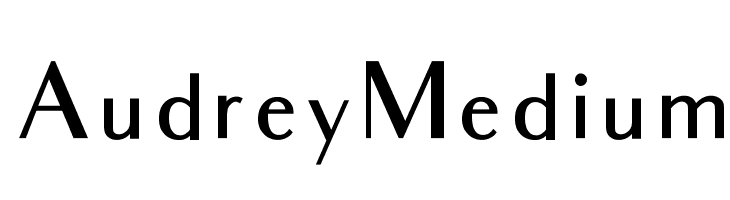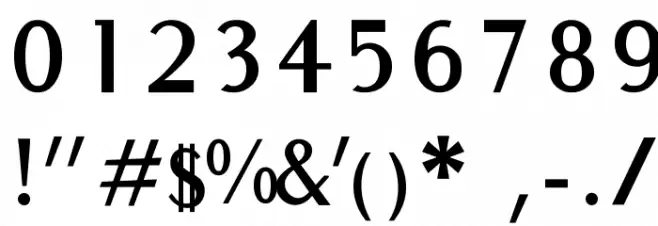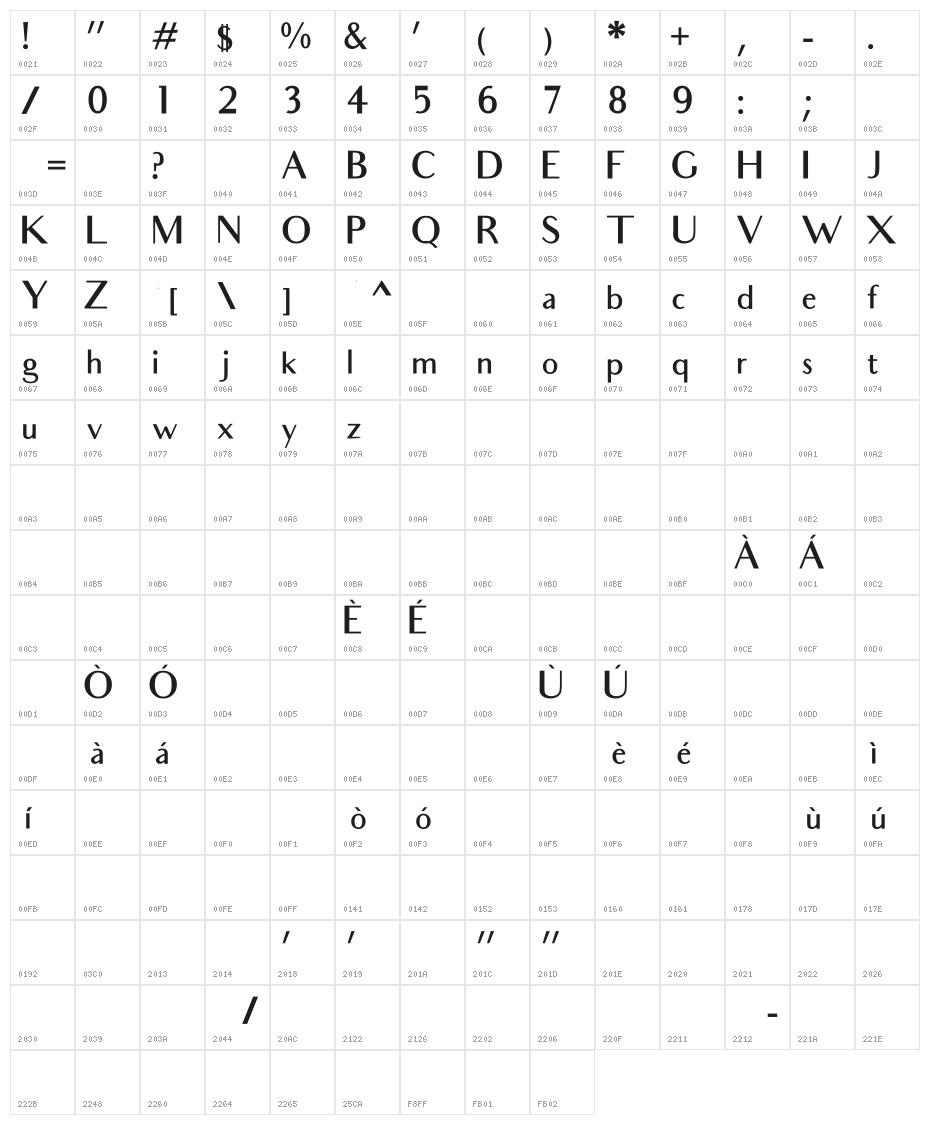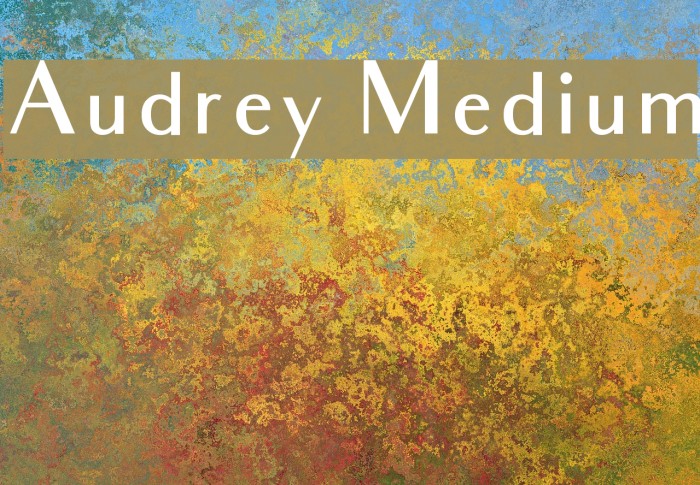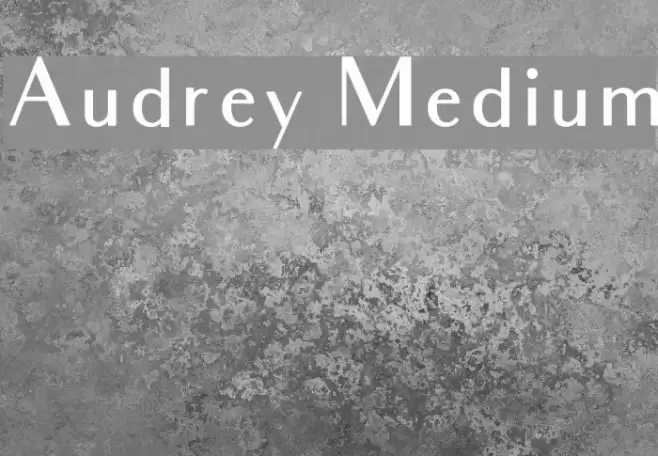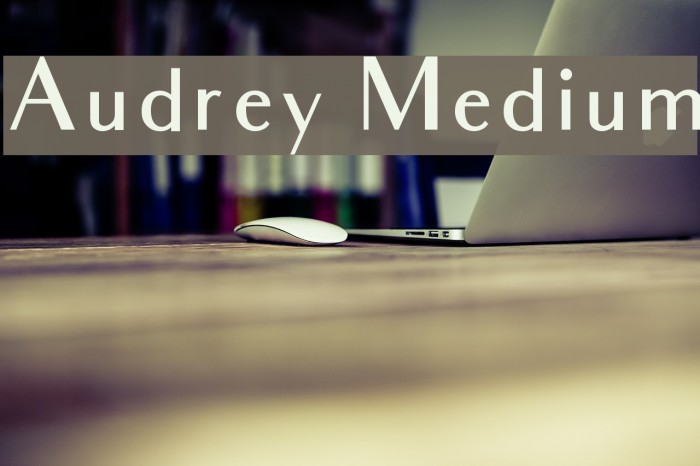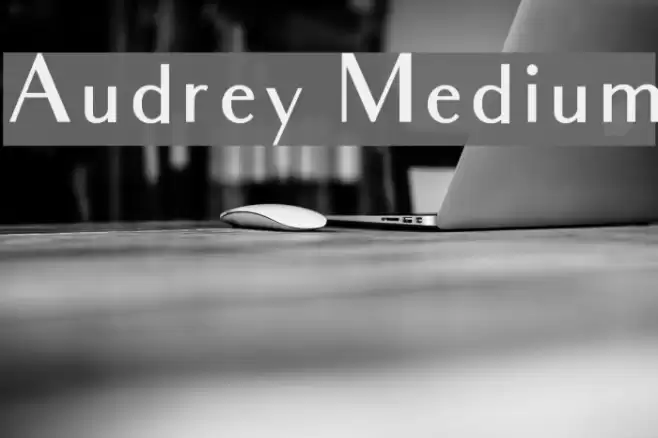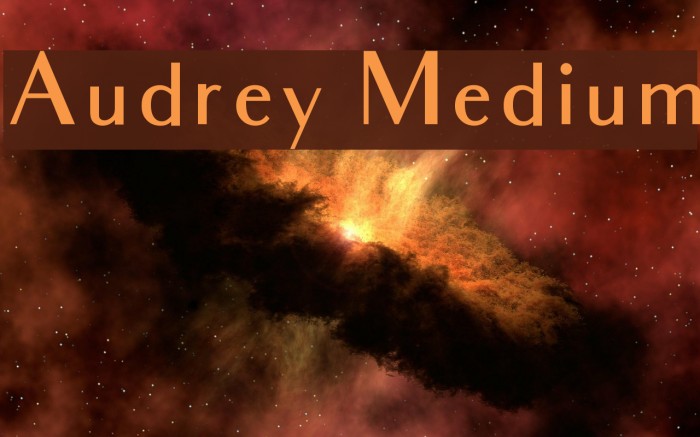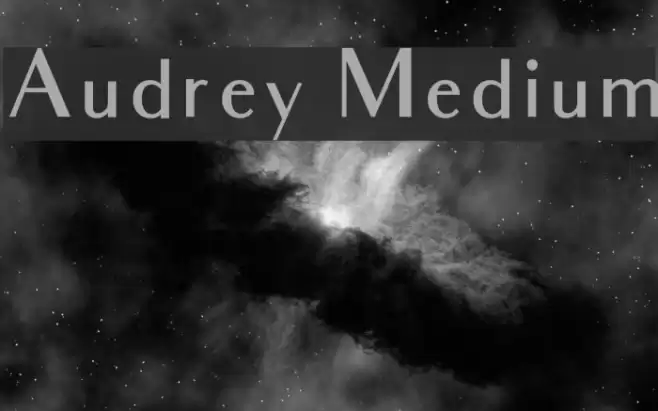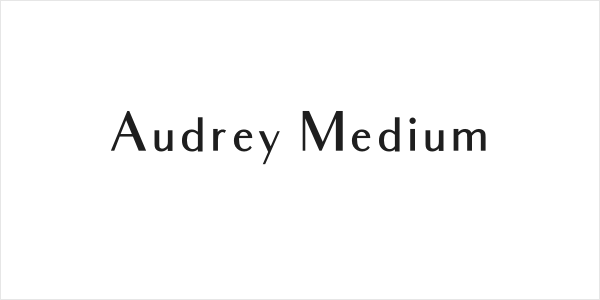
Audrey Medium Font
Audrey Medium Description
This font features a clean and elegant design with a modern touch. The uppercase letters are bold and striking, while the lowercase letters maintain a smooth and balanced appearance. The numerals are clear and easily readable, making them suitable for various applications. Special characters are well-integrated, maintaining the font's overall aesthetic. The font's design is versatile, offering a contemporary yet timeless feel, making it suitable for both digital and print media. Its simplicity and clarity make it an excellent choice for projects that require a professional and polished look.